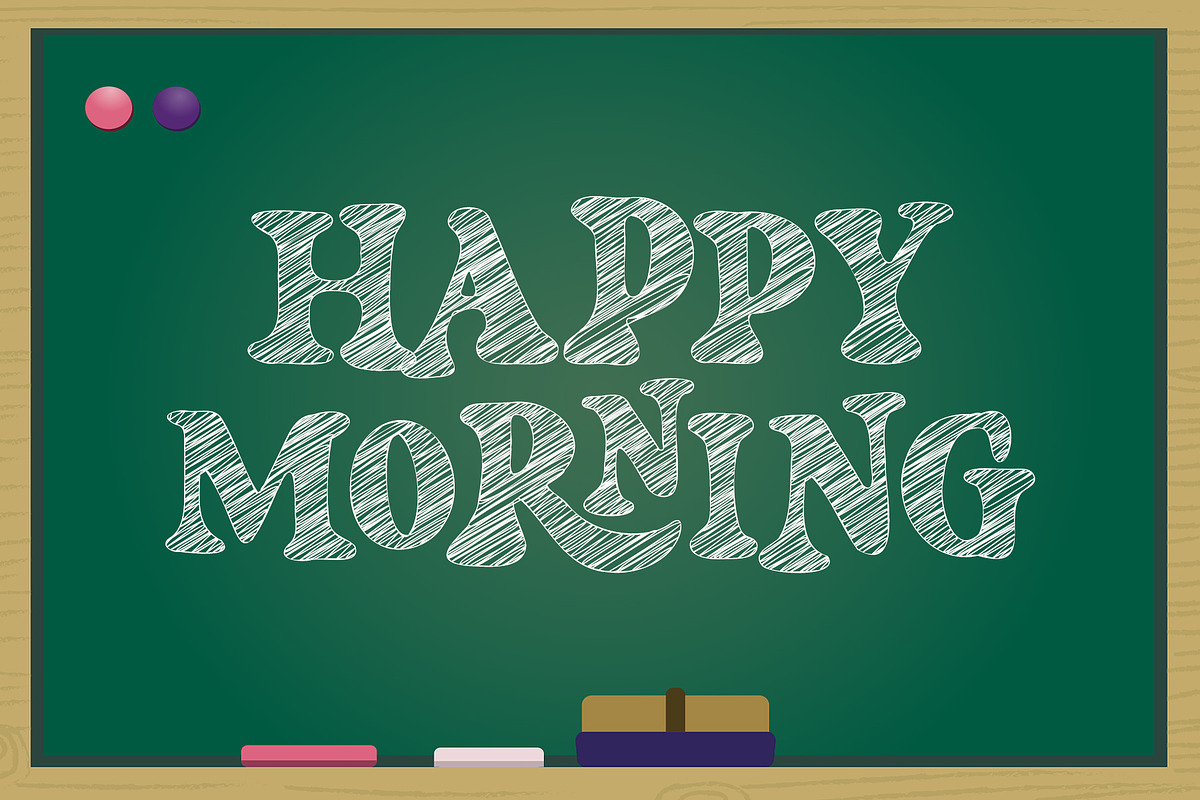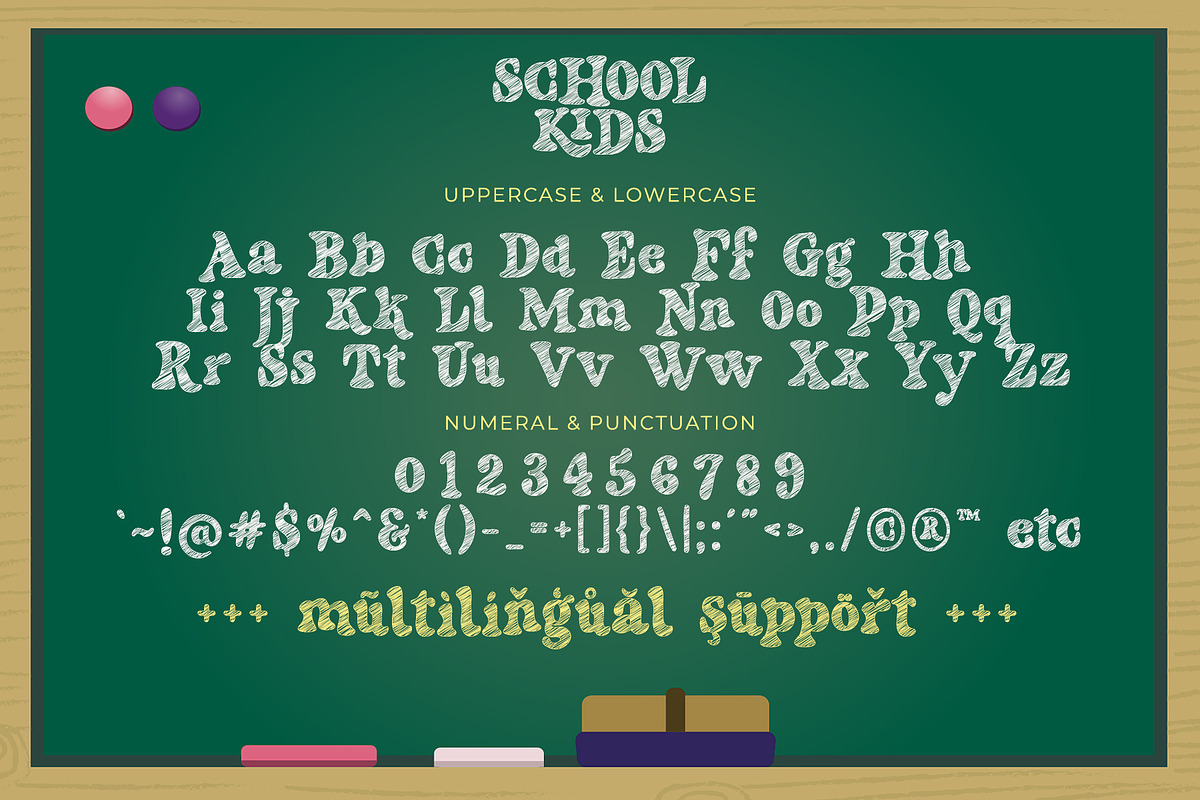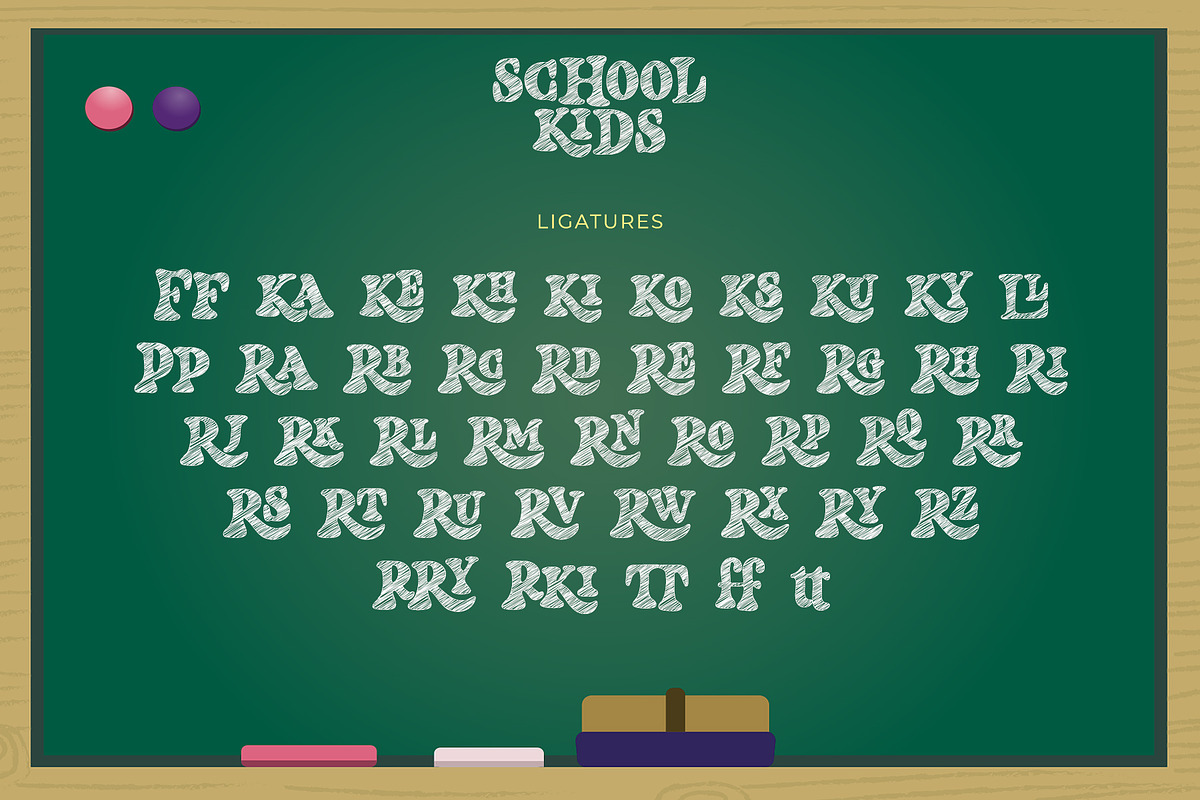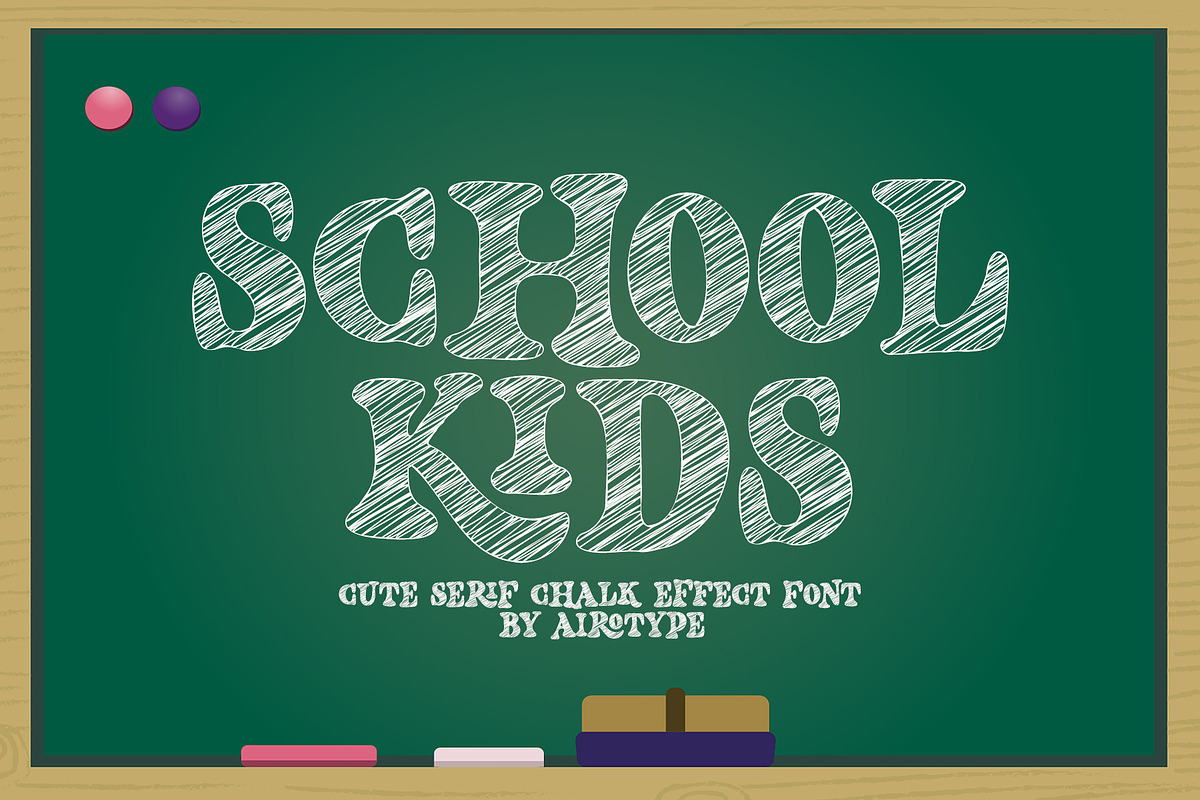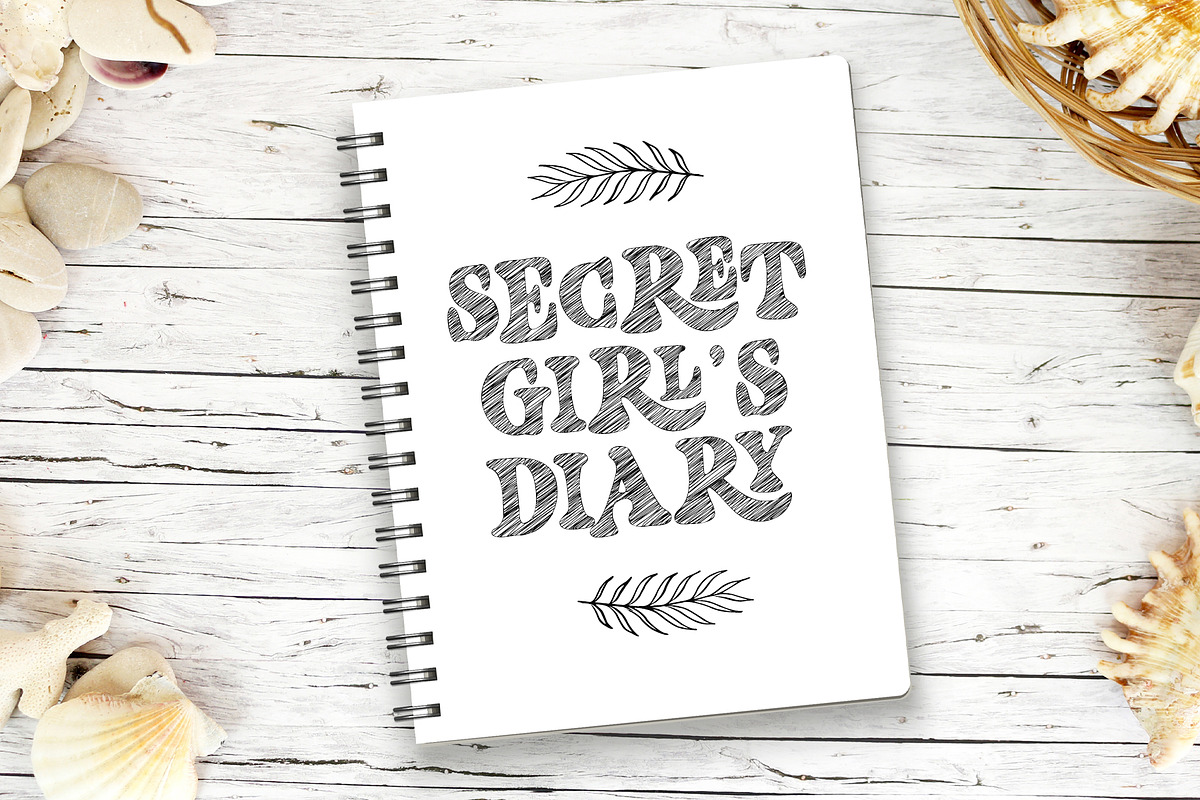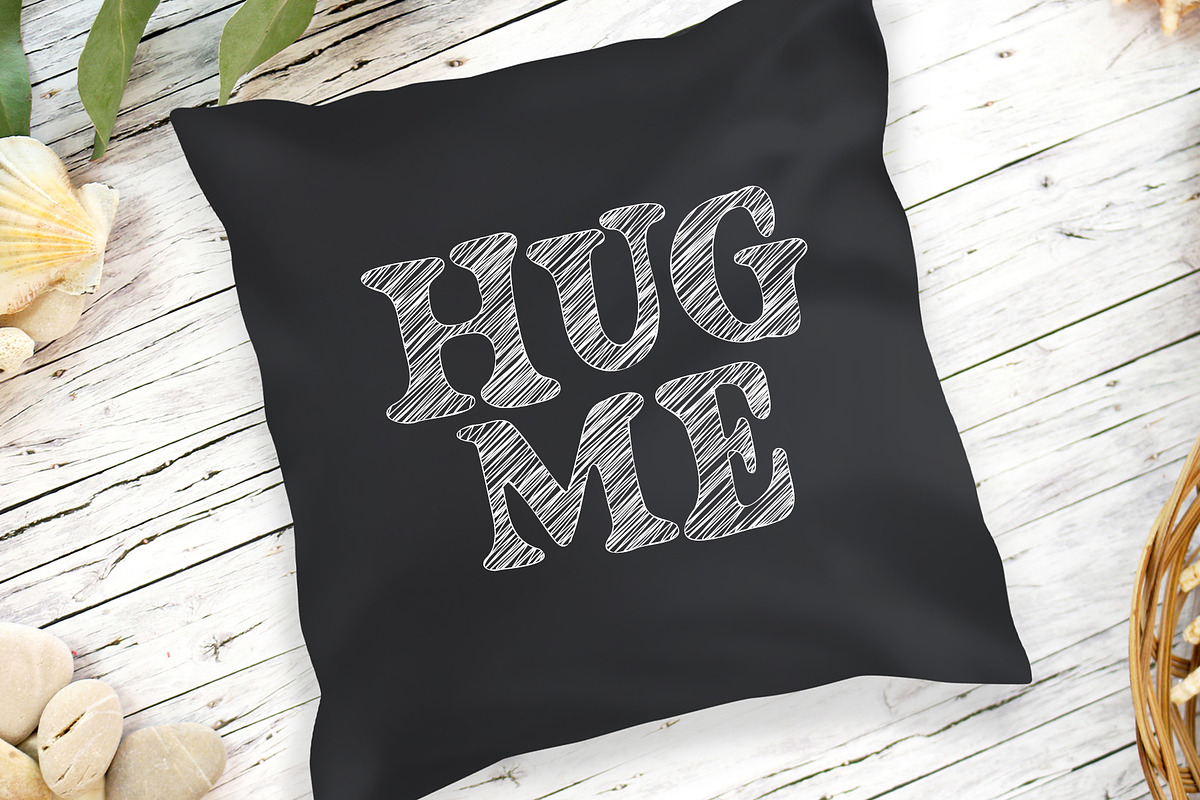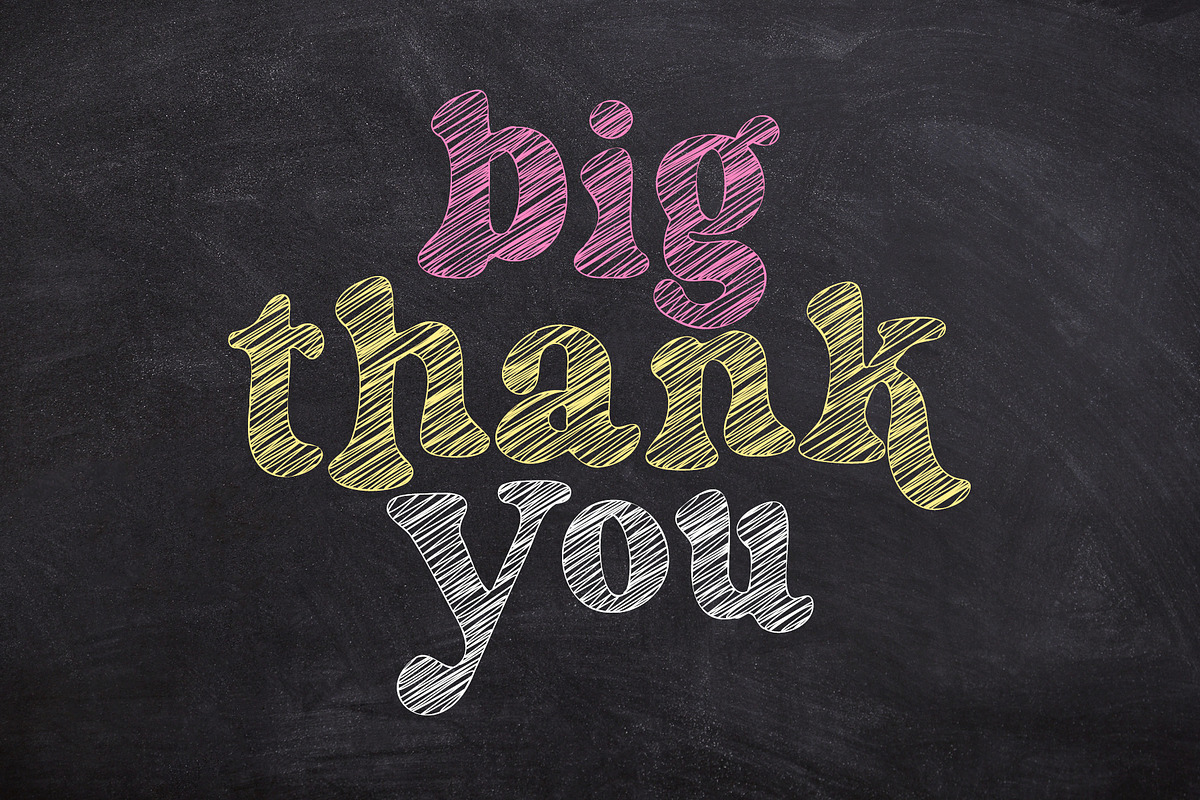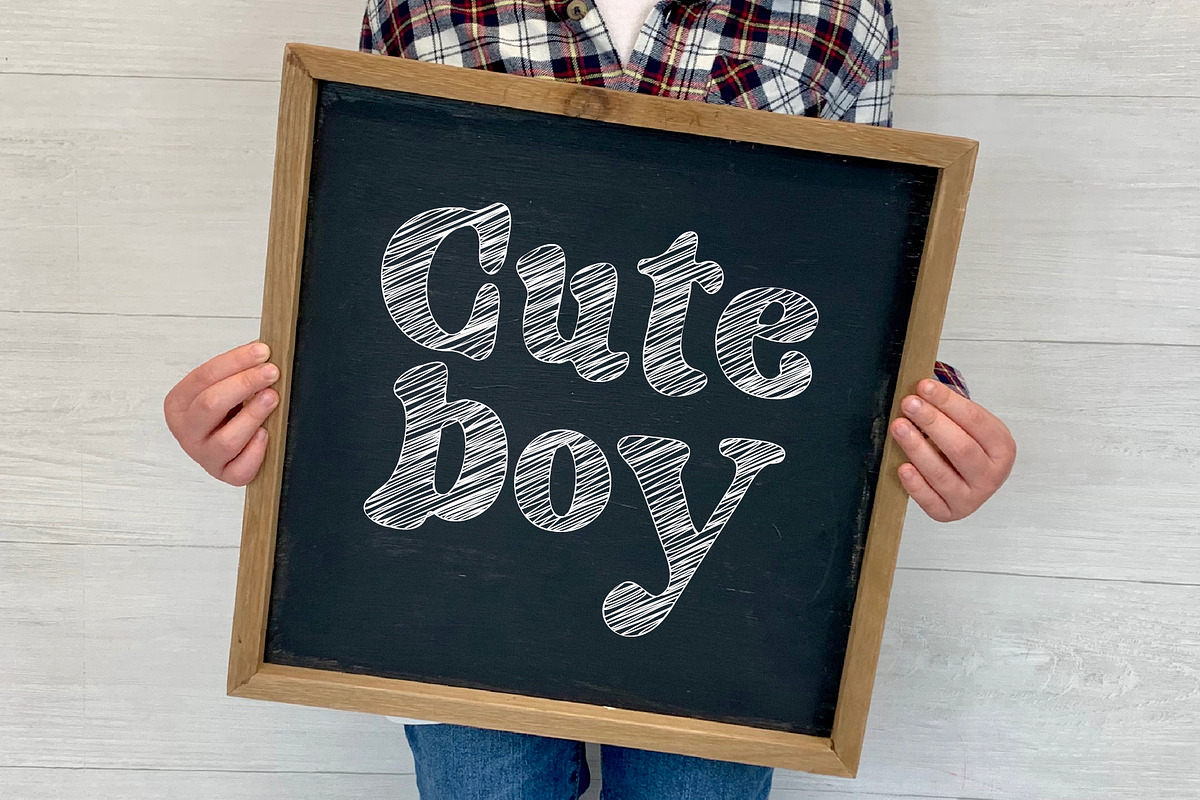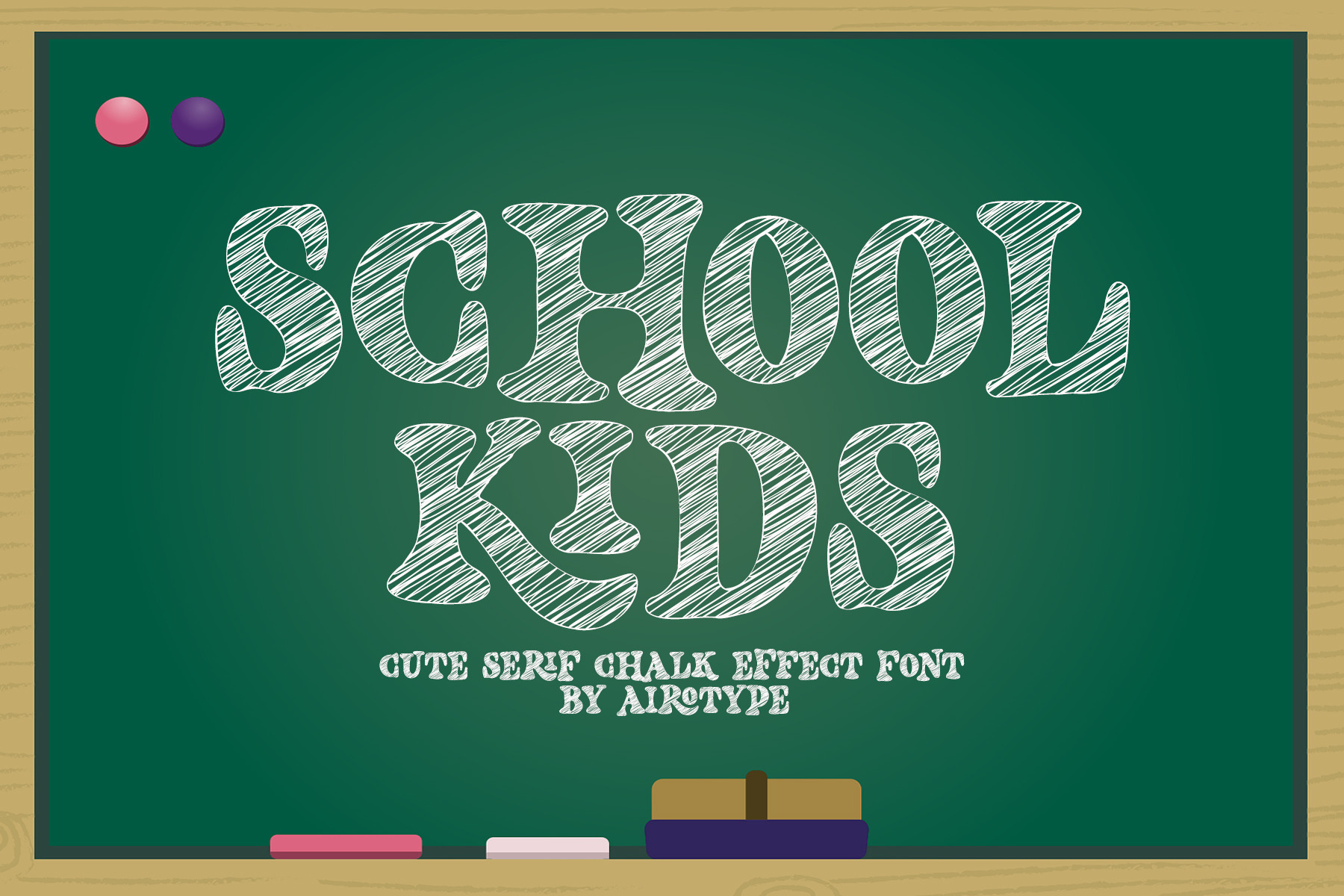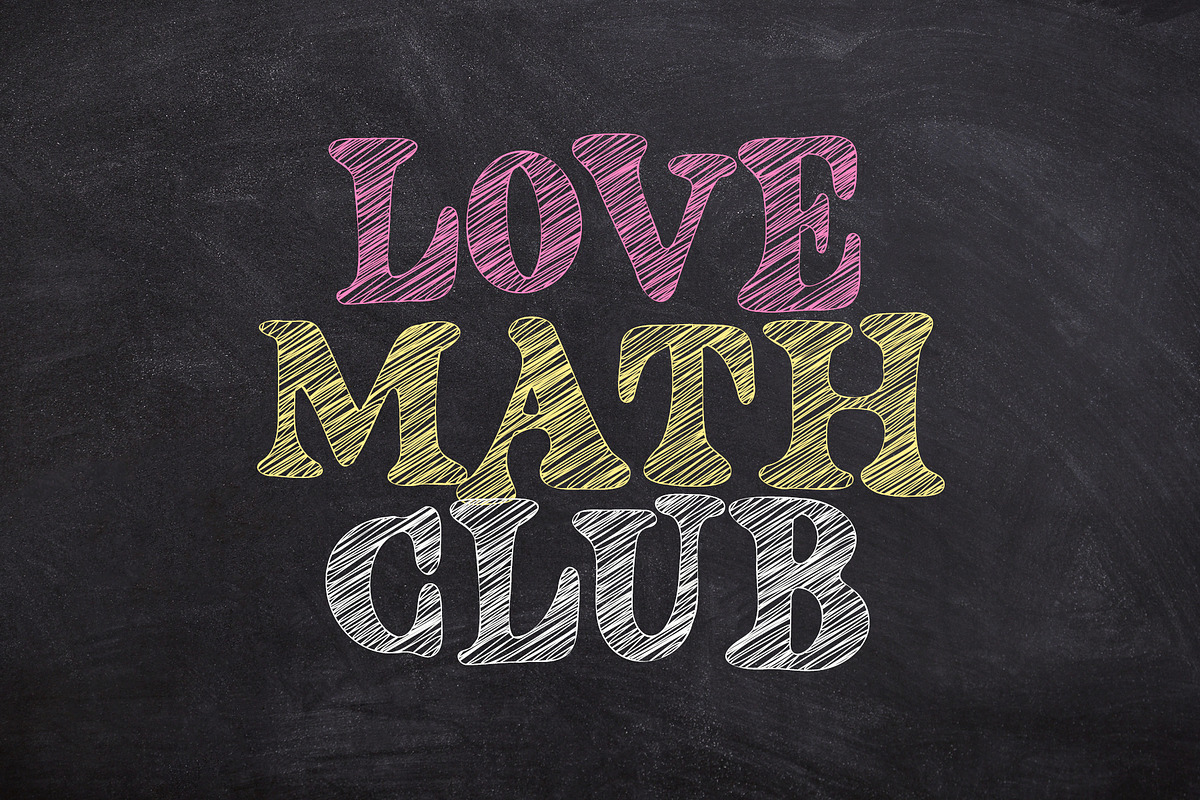
School Kids - Cute Chalk Font
School Kids is cute serif font with chalk effect. This font is special font for back to school theme.
It has few ligatures for uppercase to give more options in designing.
This font is adorable font for design that needs cute and playful touch, such as back to school design, kids design, birthday invitation, summer design, t-shirt design, crafting, sticker, sublimation, and many more.
- Uppercase & Lowercase (with uppercase ligatures)
- Most Multilingual Accent